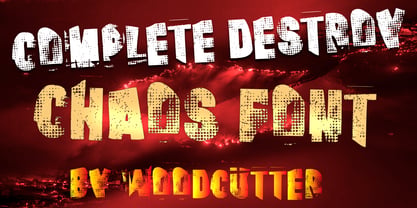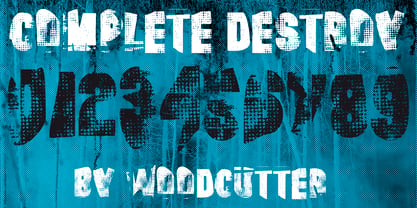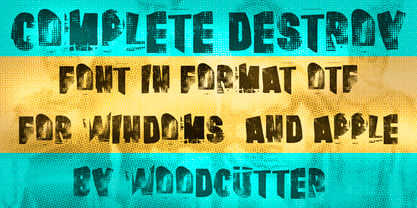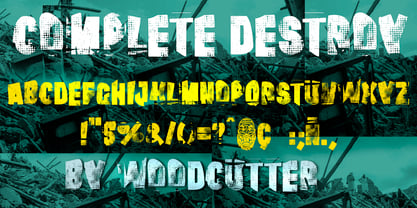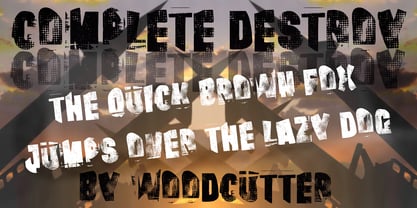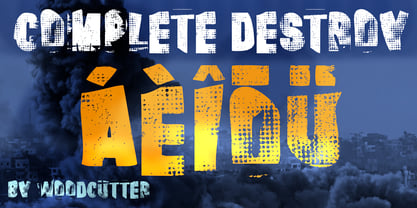
Complete Destroy
Complete Destroy is a typeface created to push typographic destruction to its absolute limits. Designed entirely in uppercase with full accent support, this font abandons any attempt at perfection, symmetry, or uniformity, creating a chaotic, aggressive, and completely damaged visual language. Each character appears to have undergone a different destructive process, making every letter distinctly different from the others.
The forms appear broken, distorted, worn, and damaged, featuring displaced fragments, unexpected cuts, irregular structures, and shapes that seem close to falling apart. The result evokes letters that have been smashed, torn, burned, eroded, or subjected to extreme pressure. Imperfection is not a secondary effect but the defining element of Complete Destroy.
One of its strongest characteristics is the extraordinary diversity between characters. Every letter has its own personality and its own degree of deterioration, generating unpredictable compositions filled with movement and visual tension. When words are combined, the result takes on an almost illustrative quality, as if each message had been reconstructed from fragments of destroyed typography.
Complete Destroy is ideal for posters, music covers, punk and metal artwork, horror design, streetwear, alternative publications, video games, and experimental graphic projects. It is an extreme, imperfect, and uncompromising typeface designed to transform every word into a visually devastated image.